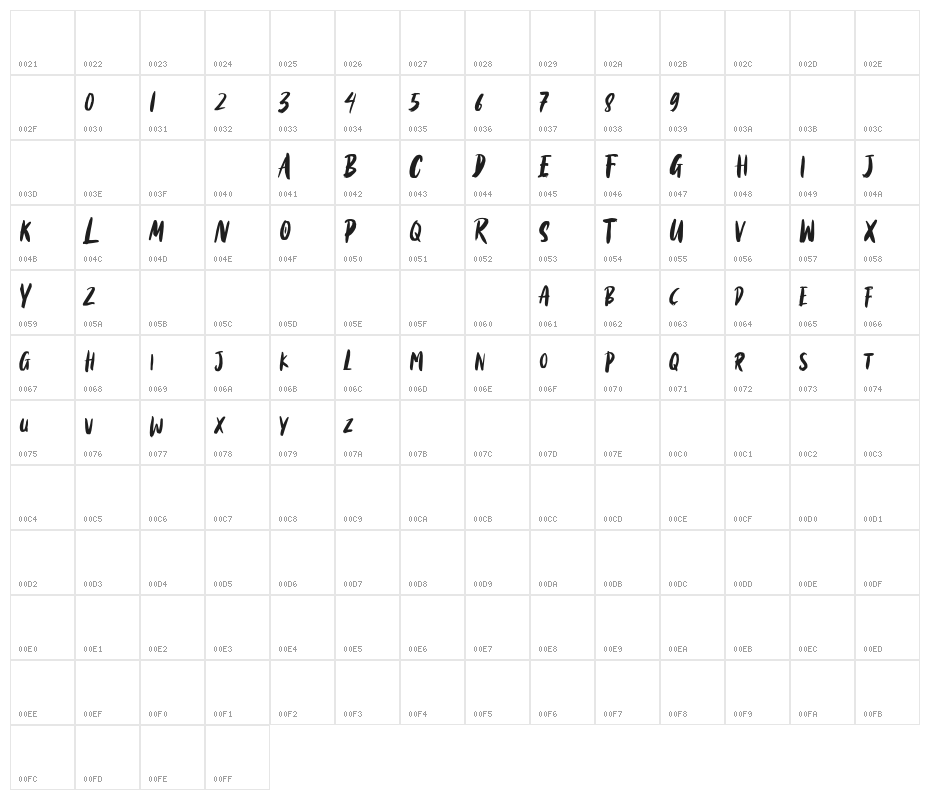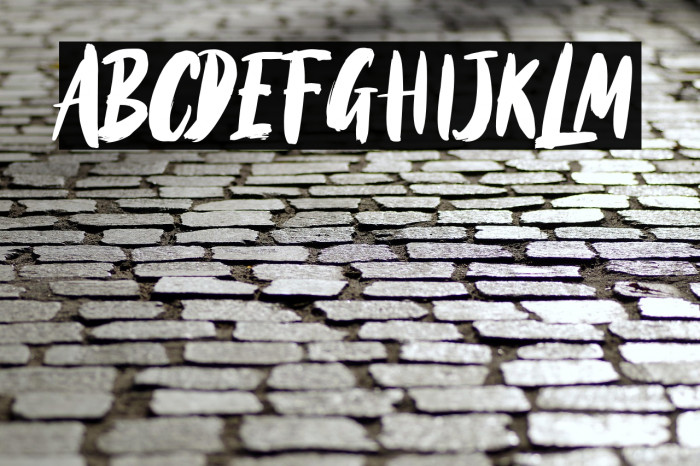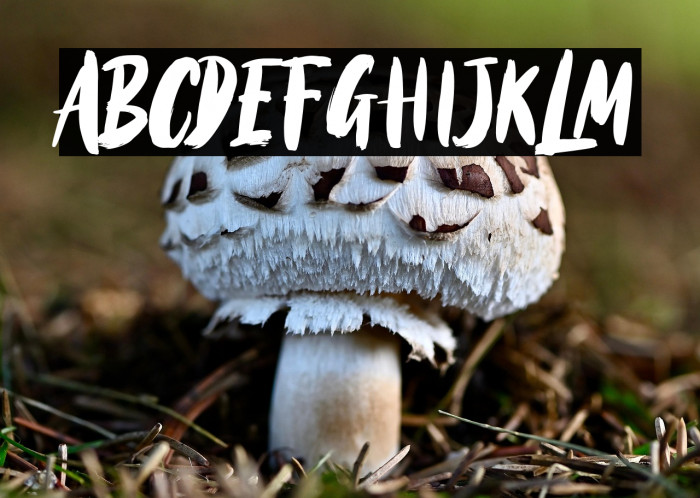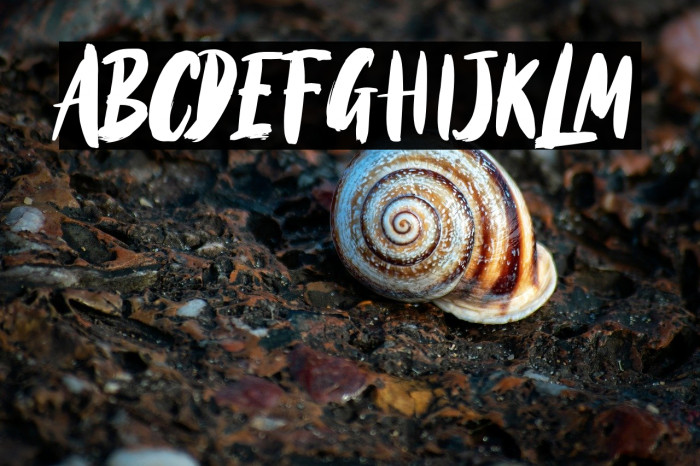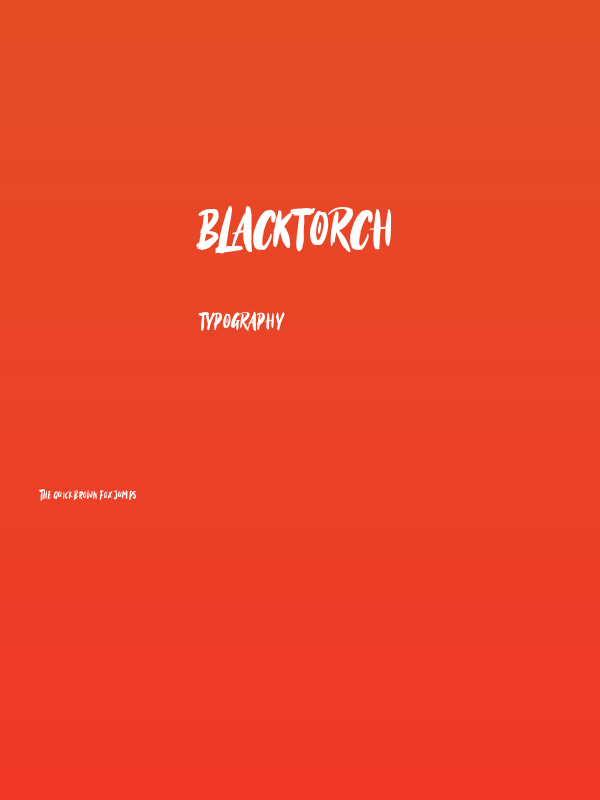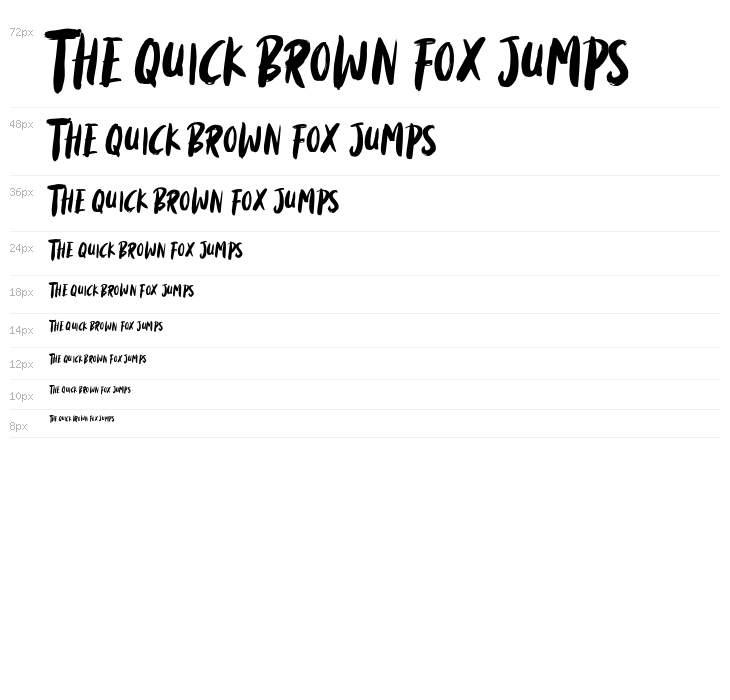
BlackTorch Font
BlackTorch Description
This font features a bold, brush-like style with a dynamic and energetic appearance. The strokes are thick and uneven, giving it a hand-painted feel that adds a personal touch to any design. The uppercase and lowercase letters are consistent in their boldness, maintaining a cohesive look throughout. The numbers and special characters follow the same stylistic approach, ensuring uniformity across all text elements. Its informal and artistic vibe makes it suitable for projects that require a creative and expressive typeface.
| Use Case | Logos, Headlines, Posters |
| Proposed Projects | Ideal for branding, posters, social media graphics, and any project that benefits from a bold, artistic touch. |